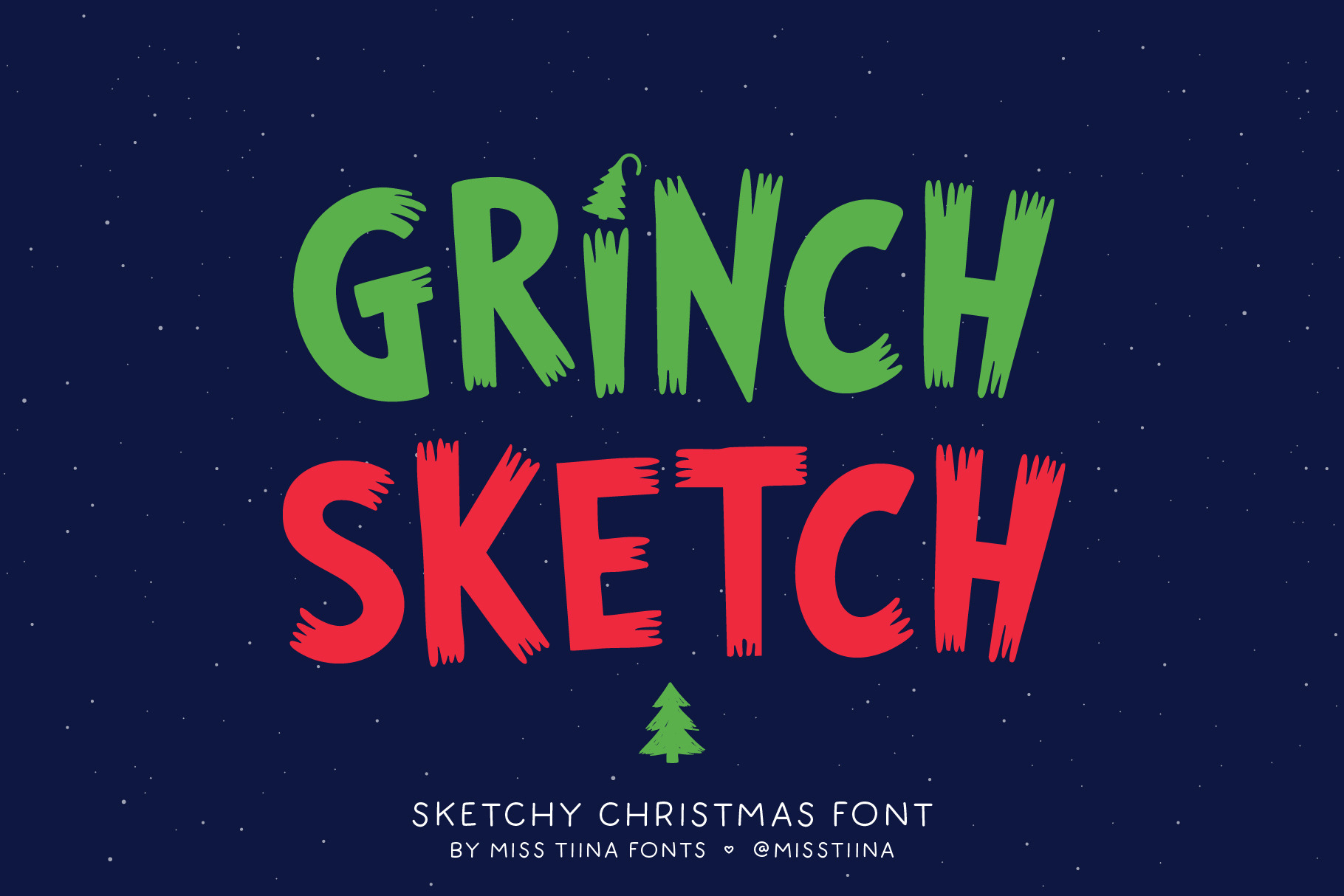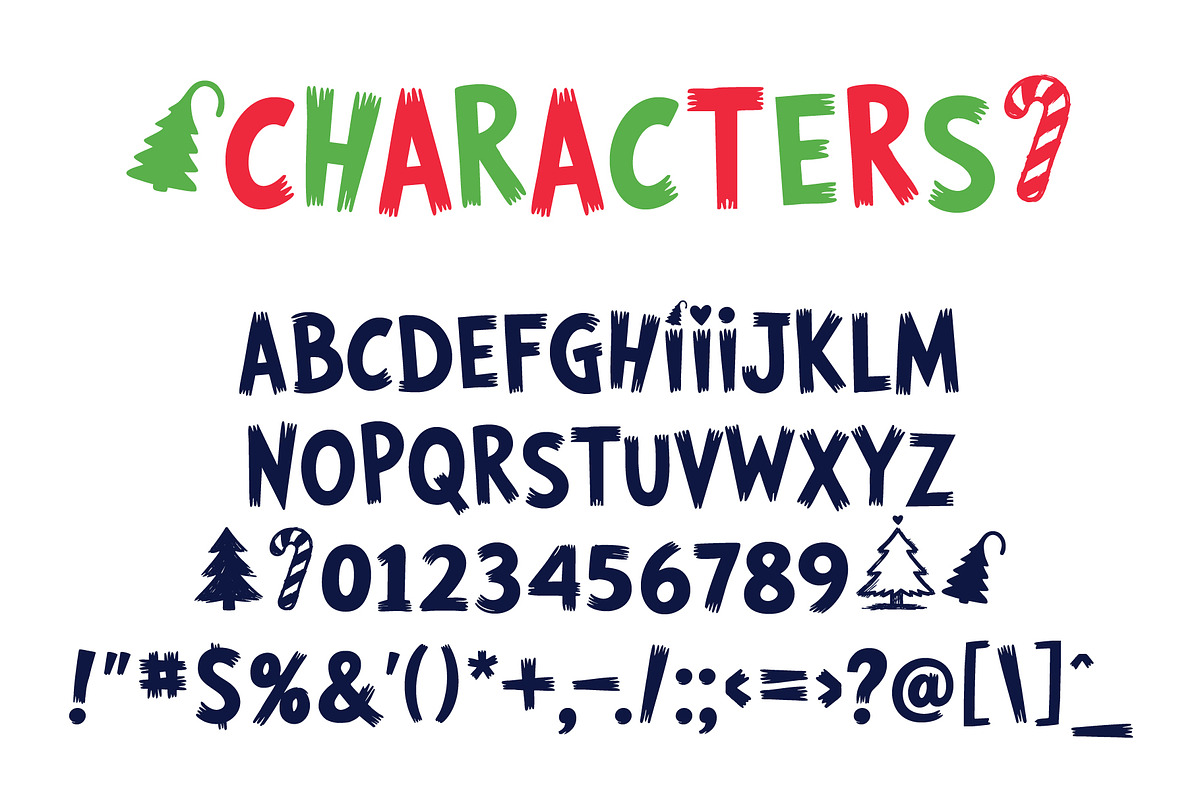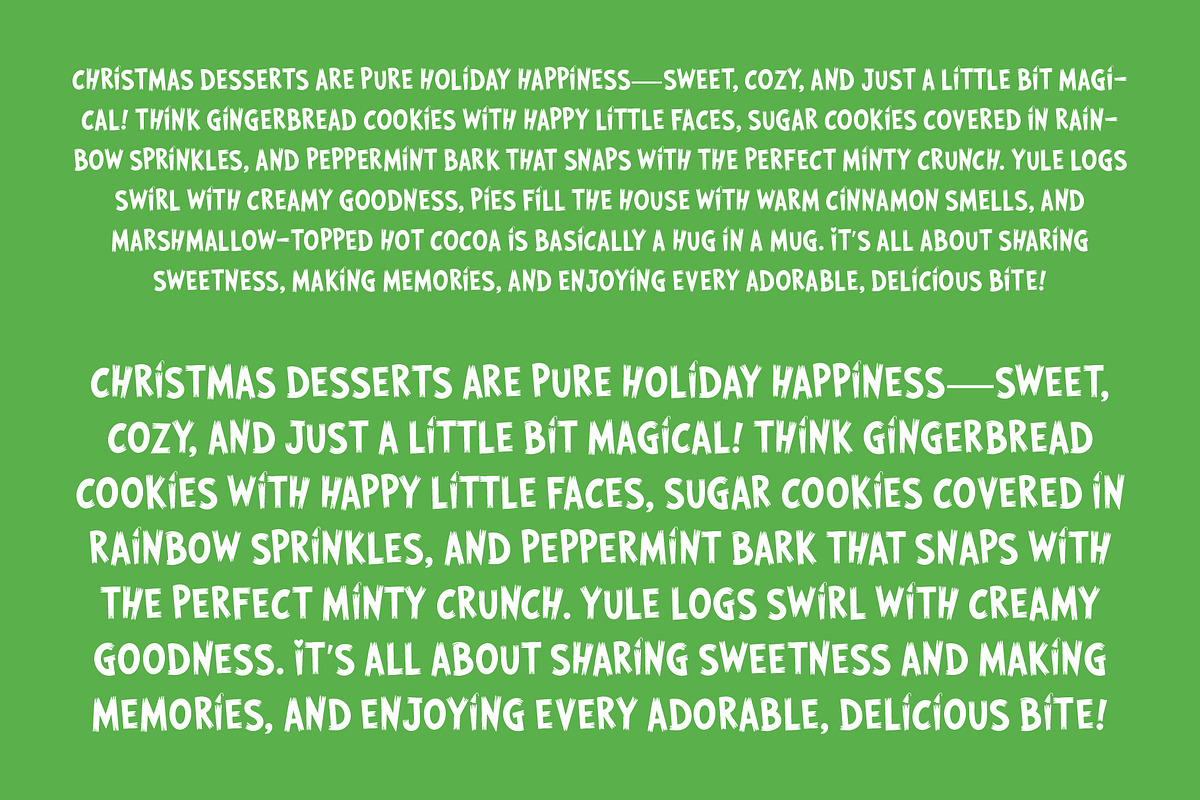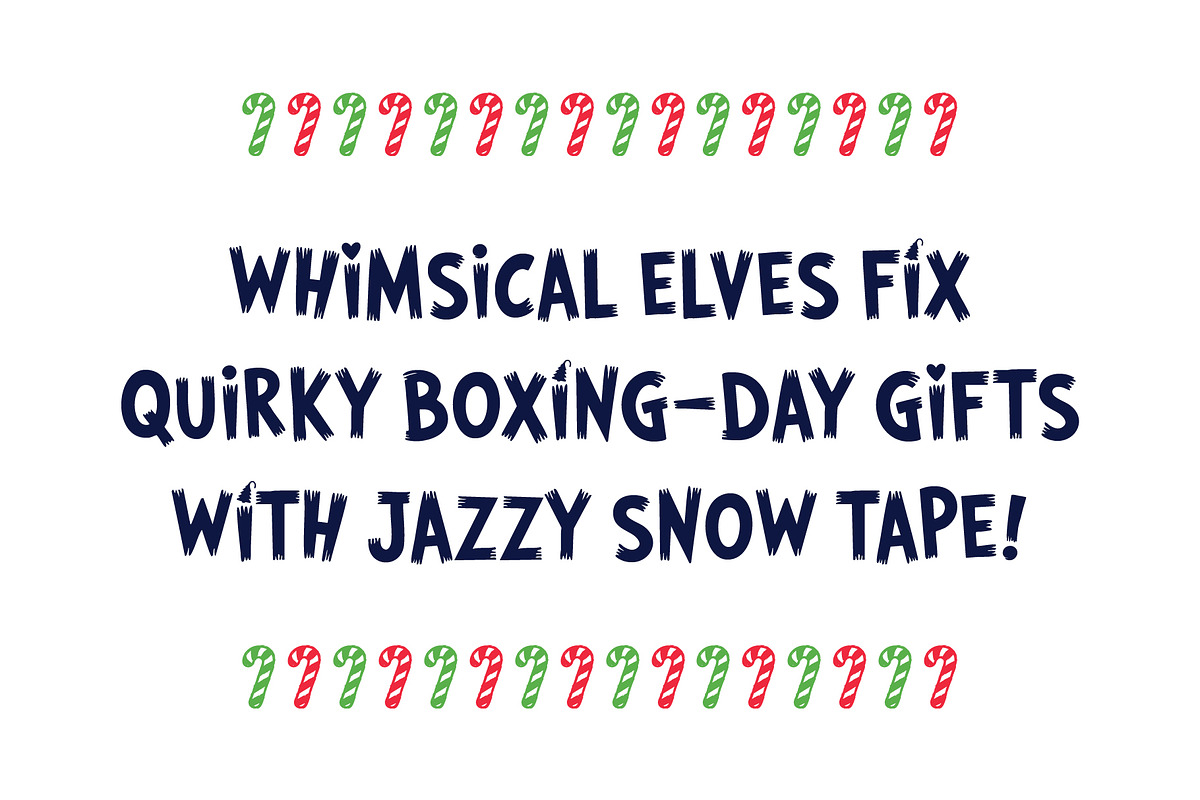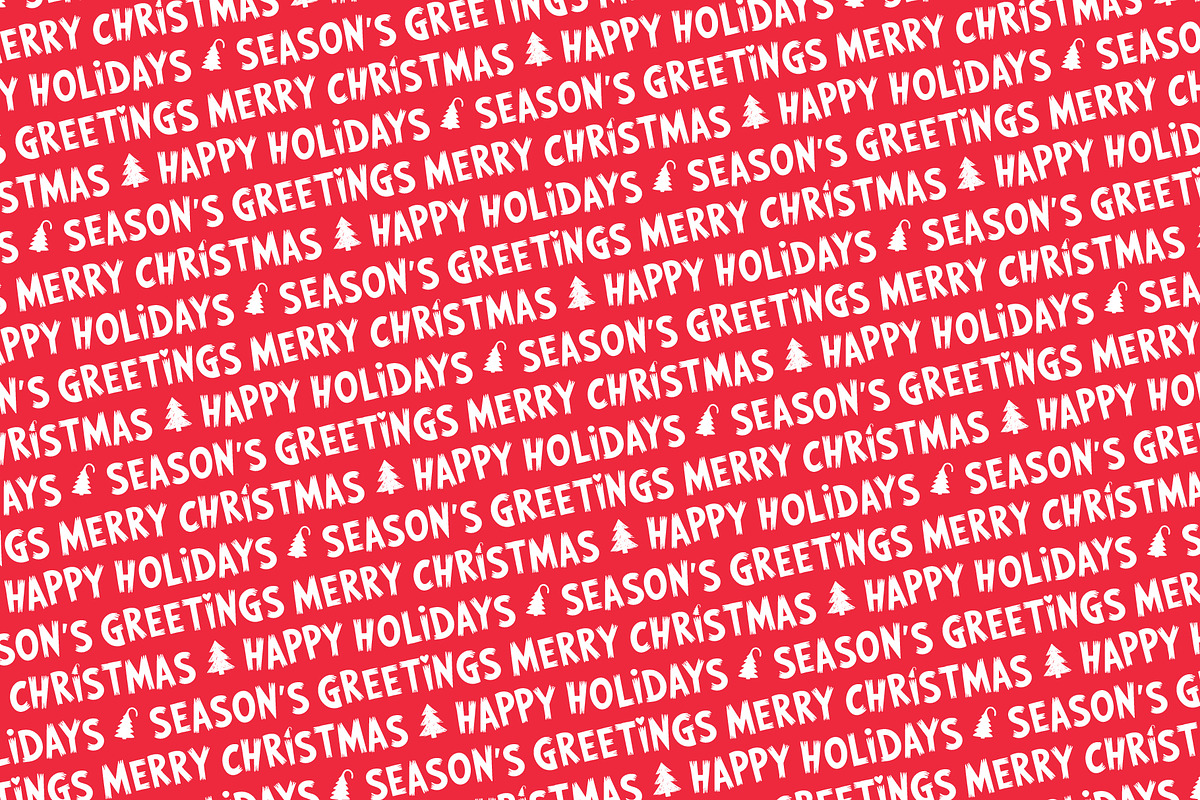
Grinch Sketch Font
Meet Grinch Sketch — a mischievous, sketchy all-caps font with hand-drawn doodle trees, a candy cane, and three alternate i’s for extra personality. Perfect for all your grinchy Christmas crafts, cards, and holiday projects! 🎄💚❤️